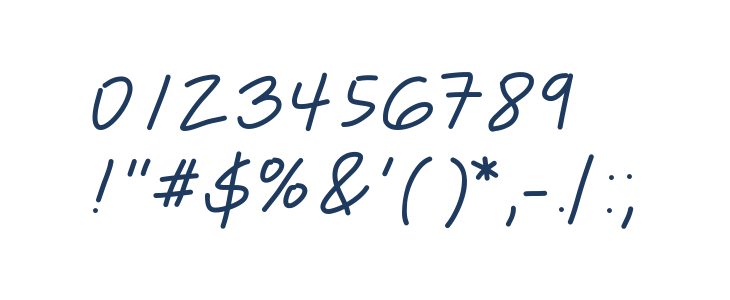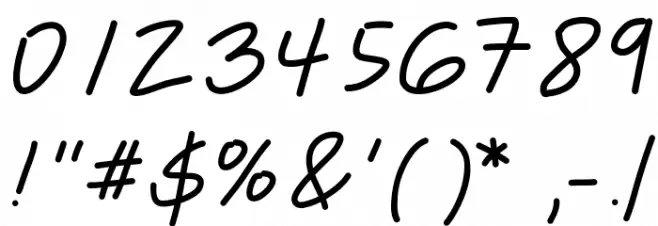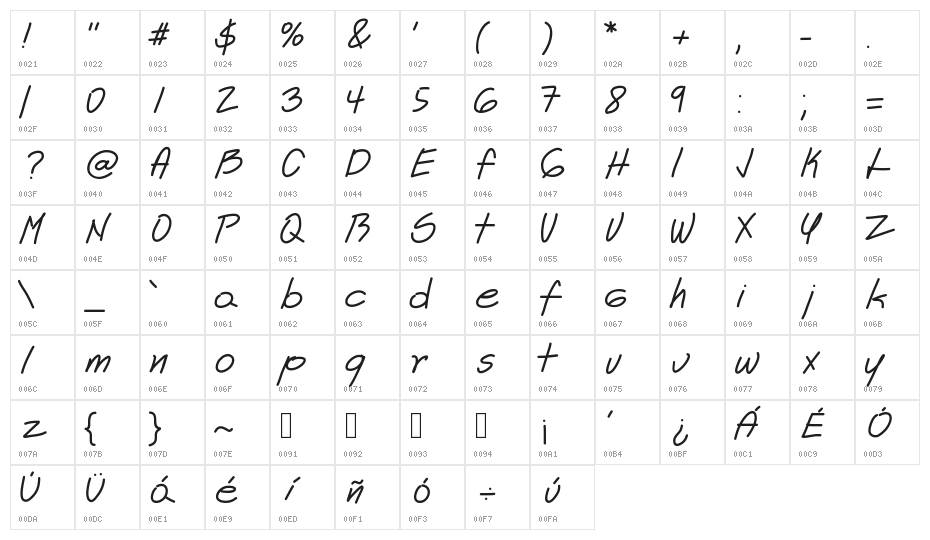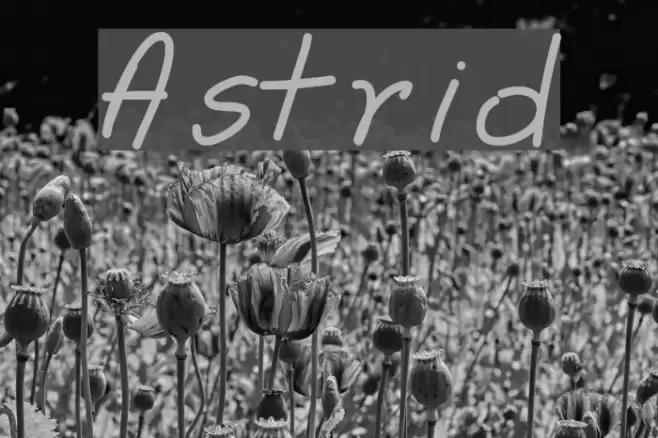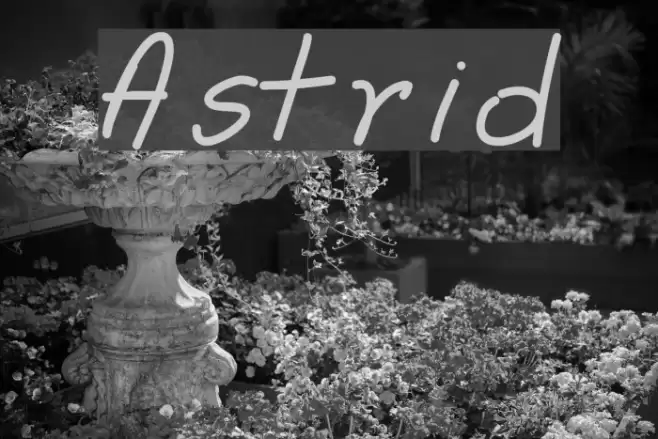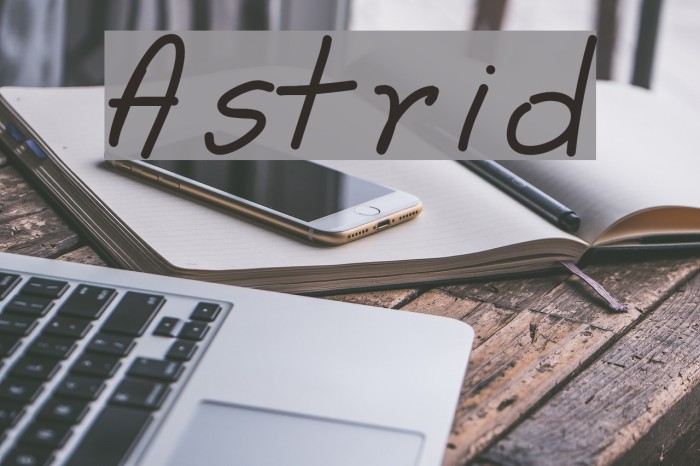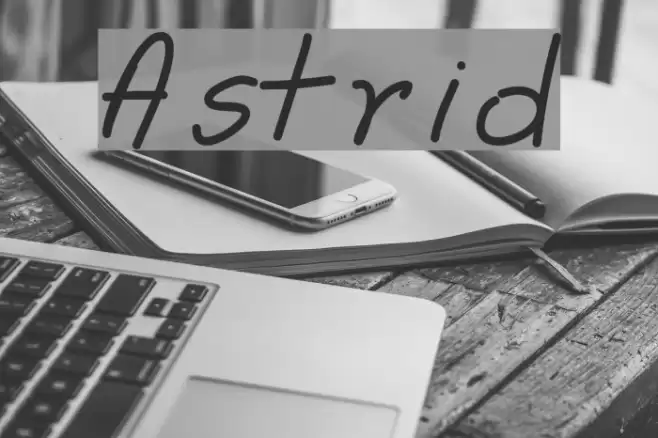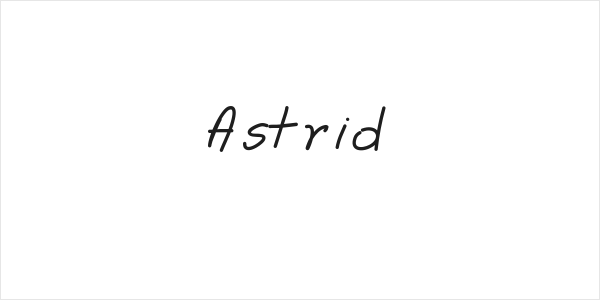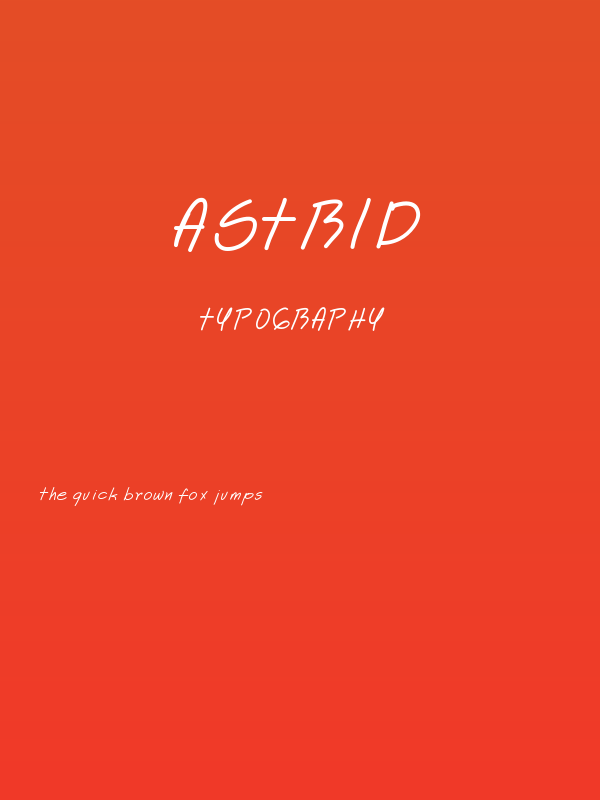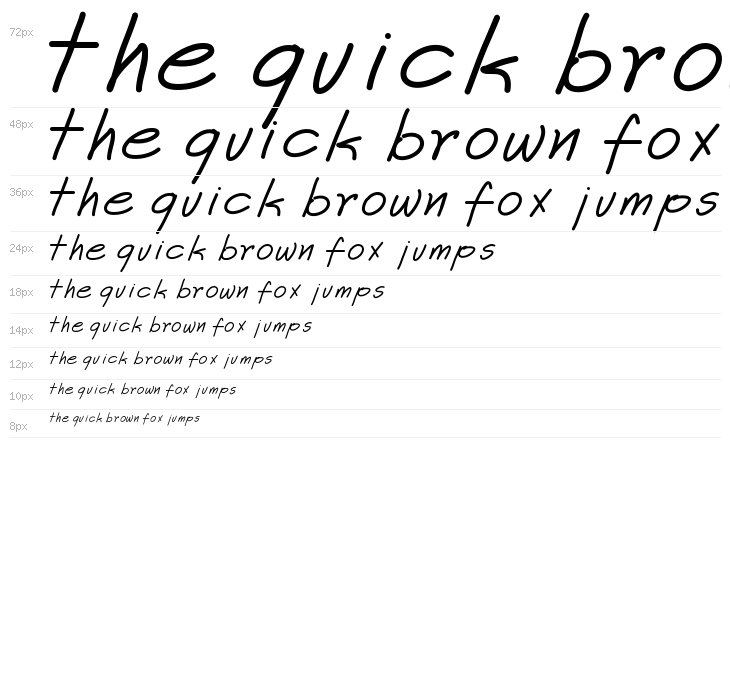
Astrid Font
Astrid Description
This font features a casual, handwritten style that exudes a sense of personal touch and informality. The letters are slightly slanted, giving it a dynamic and lively appearance. Each character is crafted with smooth, flowing lines that mimic natural handwriting, making it ideal for projects that require a personal or intimate feel. The uppercase letters maintain a consistent height, while the lowercase letters have a slight variance, adding to the organic look. The numerals and special characters are designed to match the overall style, ensuring a cohesive appearance across all text elements.
| Overall Style | Casual, Personal |
| Use Case | Headlines, Informal text, Personal notes |
| Proposed Projects | Ideal for personal letters, invitations, greeting cards, and informal branding projects. |